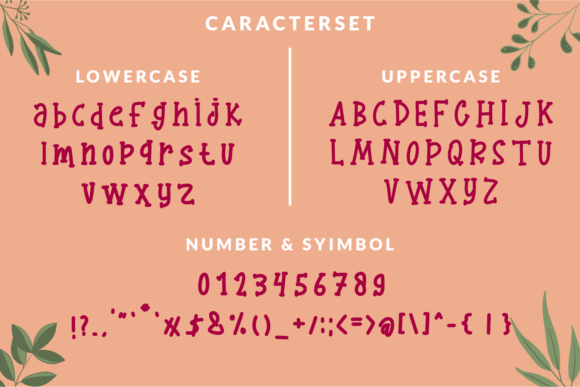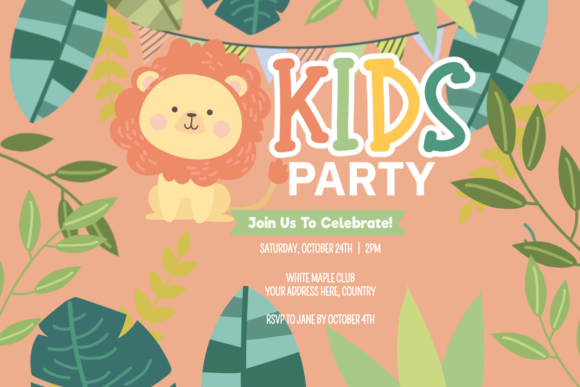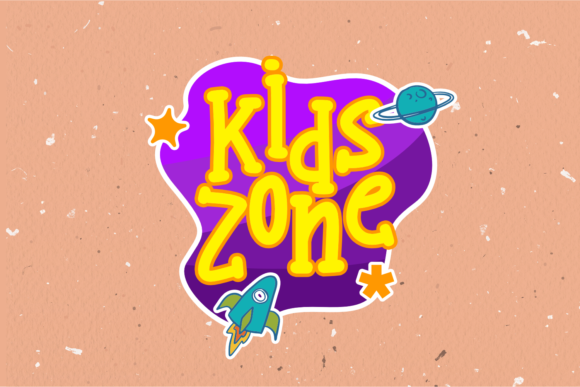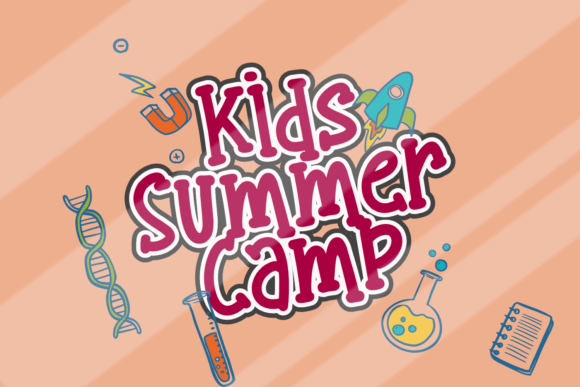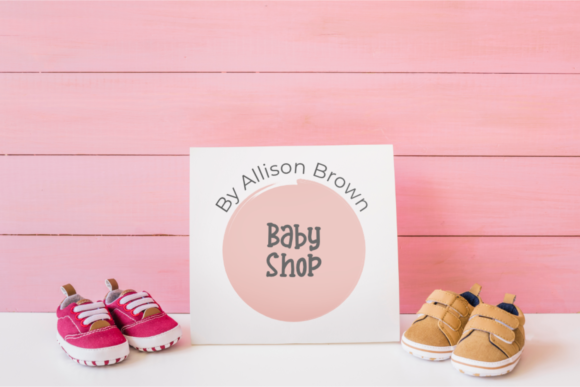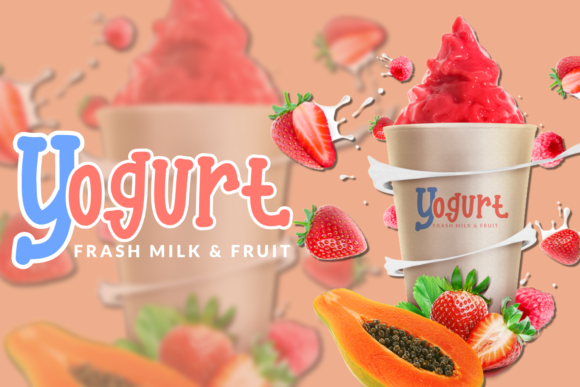
Capture the Whimsy with Honey Donkey Font
Have you ever been working on a creative project and suddenly, a spark of inspiration hits you? Maybe it’s a colorful illustration, a playful character, or a quirky quote that just won’t let you go. Whatever it is, it’s that extra something that makes your design stand out from the crowd. For designers looking to add a touch of whimsy to their work, the Honey Donkey Font is the perfect solution.
This cute and quirky handwritten font is designed to bring joy and personality to any design project. Whether you’re working on cartoon-related designs, children’s games, or book covers, the Honey Donkey Font is a great choice. Its unique style and charm make it an invaluable asset for designers looking to add a little extra magic to their creations.
Honey Donkey Font Key Features
- Unique Characteristics: Honey Donkey Font features a unique blend of modern and vintage elements, with distinctive letterforms and a subtle texture that adds depth and visual interest.
Honey Donkey Font Review
I’ve had the chance to work with the Honey Donkey Font, and I must say it’s a unique and quirky addition to any design project. Here are my thoughts on what works well and what doesn’t.
- Distinctive and playful feel: Honey Donkey Font is perfect for projects that need a touch of whimsy and fun.
- Good legibility: Despite its unusual design, the font is still easy to read, making it a great choice for body text.
- Customization options: The font comes with a range of weights and styles, allowing you to tailor it to your design needs.
- Limited suitability for formal projects: Honey Donkey Font’s playful feel may not be suitable for serious or formal projects.
- Lack of consistency: The font’s irregular design may not be to everyone’s taste, and it may not work well in large blocks of text.
- Not ideal for small text: The font’s unique design may make small text difficult to read.
Overall, Honey Donkey Font is a great choice for projects that need a touch of personality and fun. While it may not be suitable for all projects, it’s a versatile and unique addition to any design arsenal.
The Honey Donkey Font is a versatile font that can be used for various design projects. Some common use cases include:
- Brand logos and identities
- Food and beverage packaging
For optimal results, use the font in combination with bold and italic styles to add emphasis and visual interest.
What is the recommended font size and line height for the Honey Donkey Font?
For optimal readability, we recommend using the Honey Donkey Font at a minimum size of 12 points and a line height of 1.2 to 1.5 times the font size. This will ensure that the text remains clear and easy to read, even at smaller font sizes.